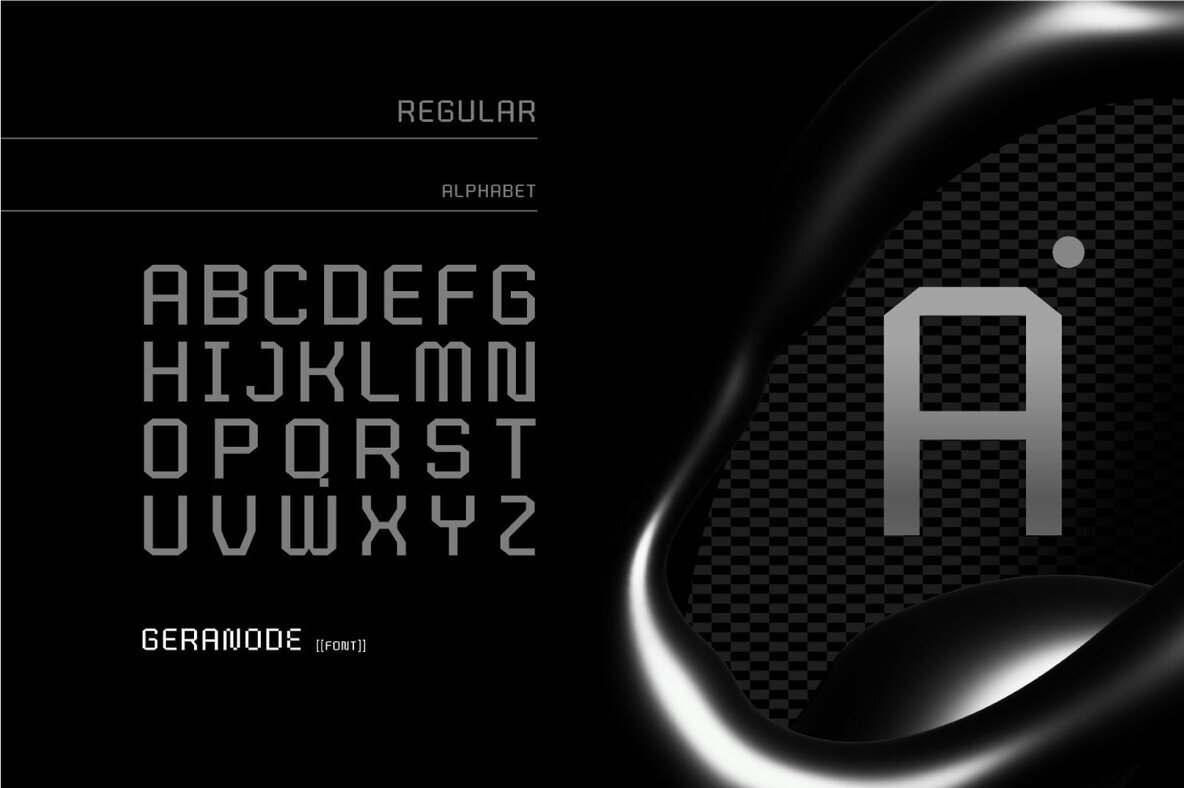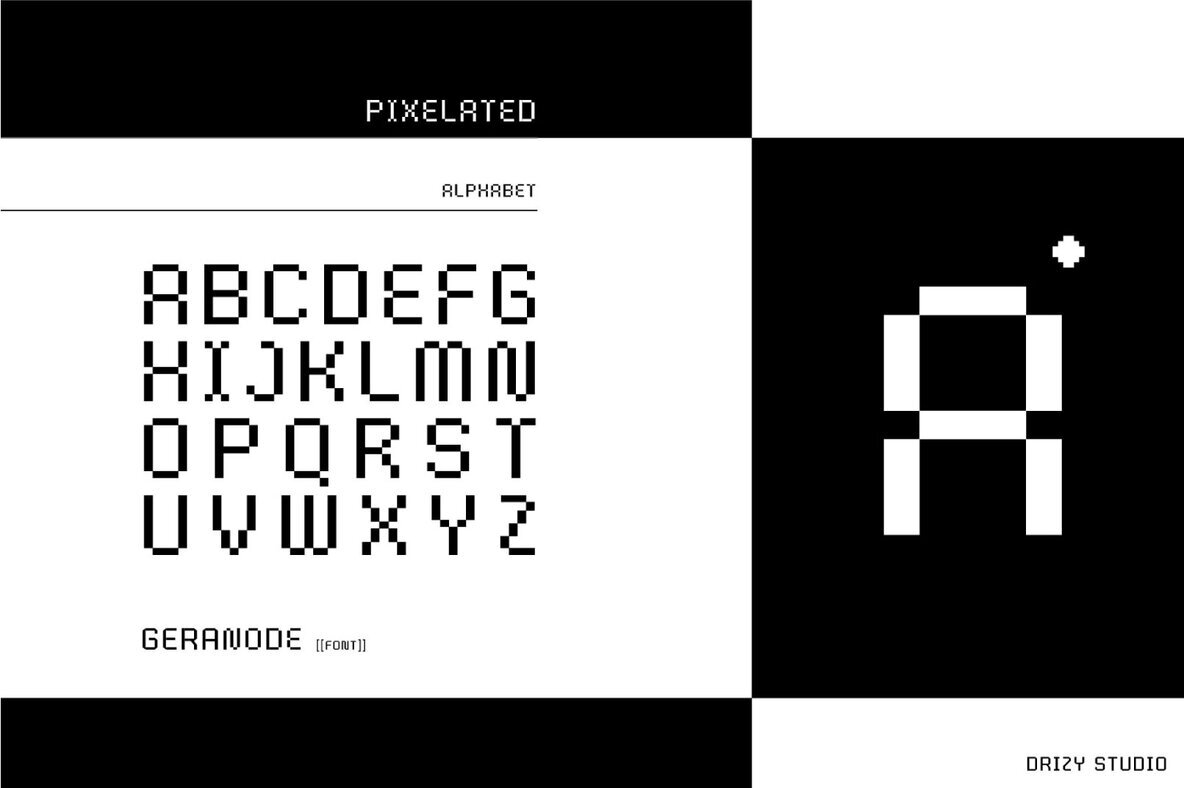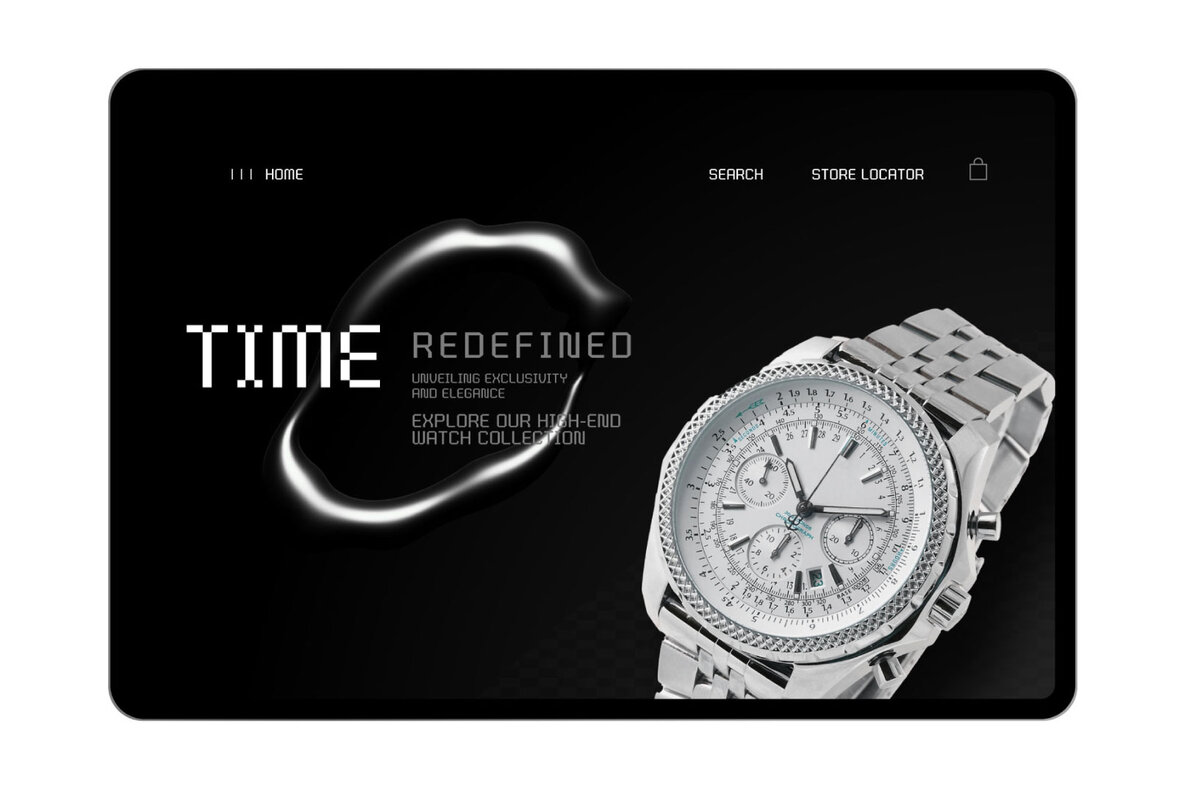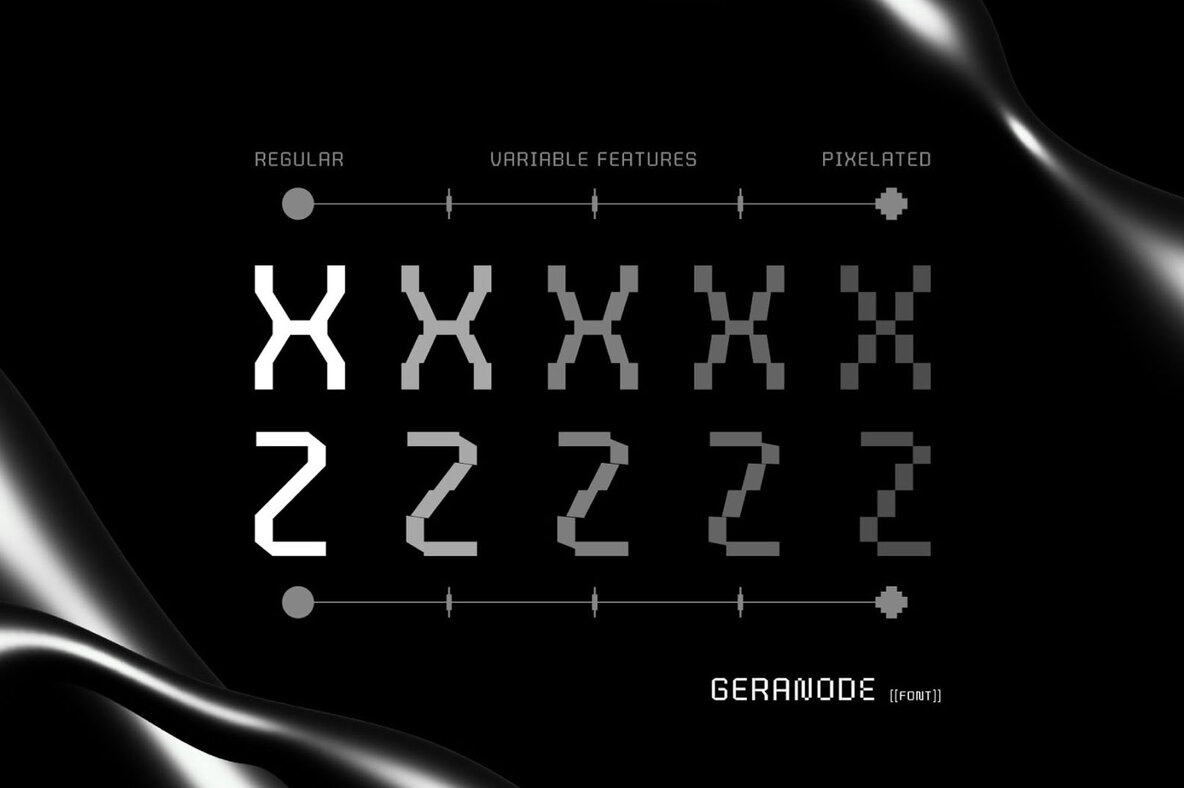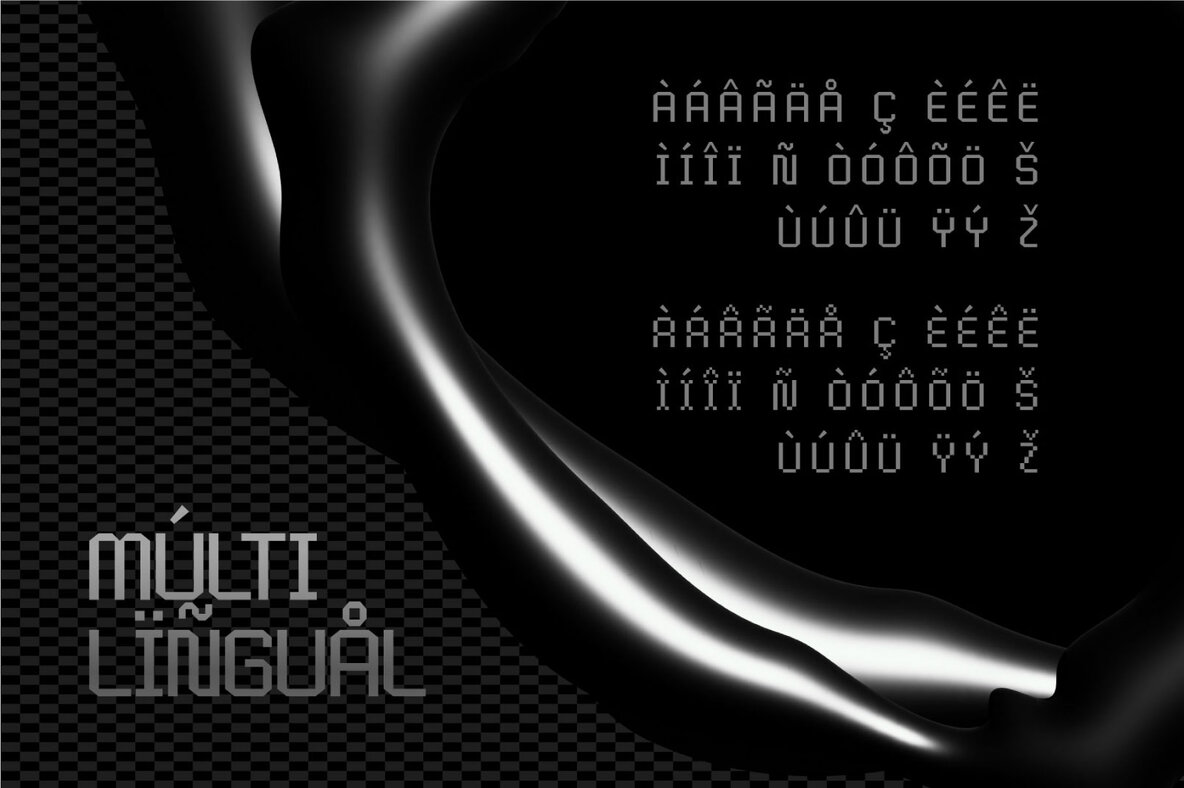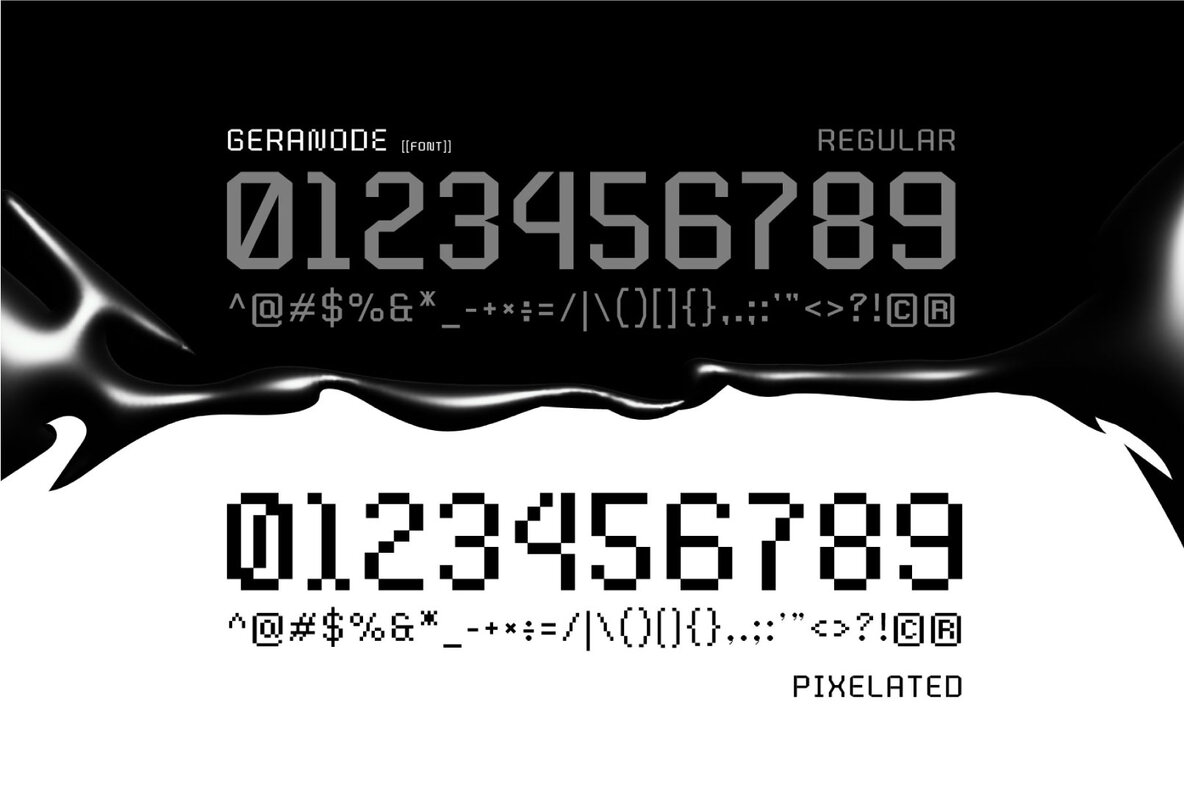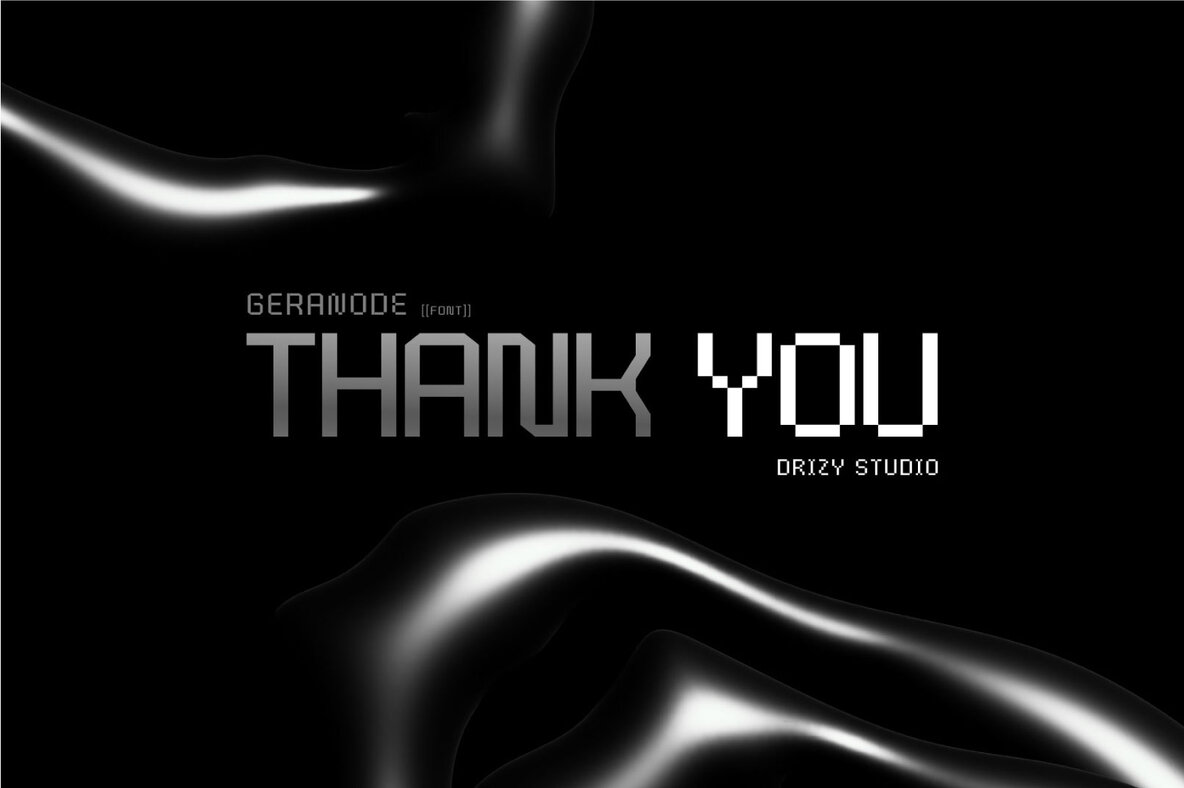
Geranode Font
Geranode is a cutting-edge Techno Display Pixel Font designed to inject your digital projects with a dynamic and experimental aesthetic. Crafted with precision, Geranode seamlessly merges technology and style, offering a modern and impactful typeface. This font features a comprehensive character set and includes punctuations, numbers, and multilingual support.
What sets Geranode apart is its variable nature, providing both regular and pixelated versions to give you flexible design options. Additionally, it includes alternate characters to further expand your creativity. Ideal for projects that require a futuristic and tech-centric feel, Geranode stands ready to enhance your designs with its unique, modern flair.